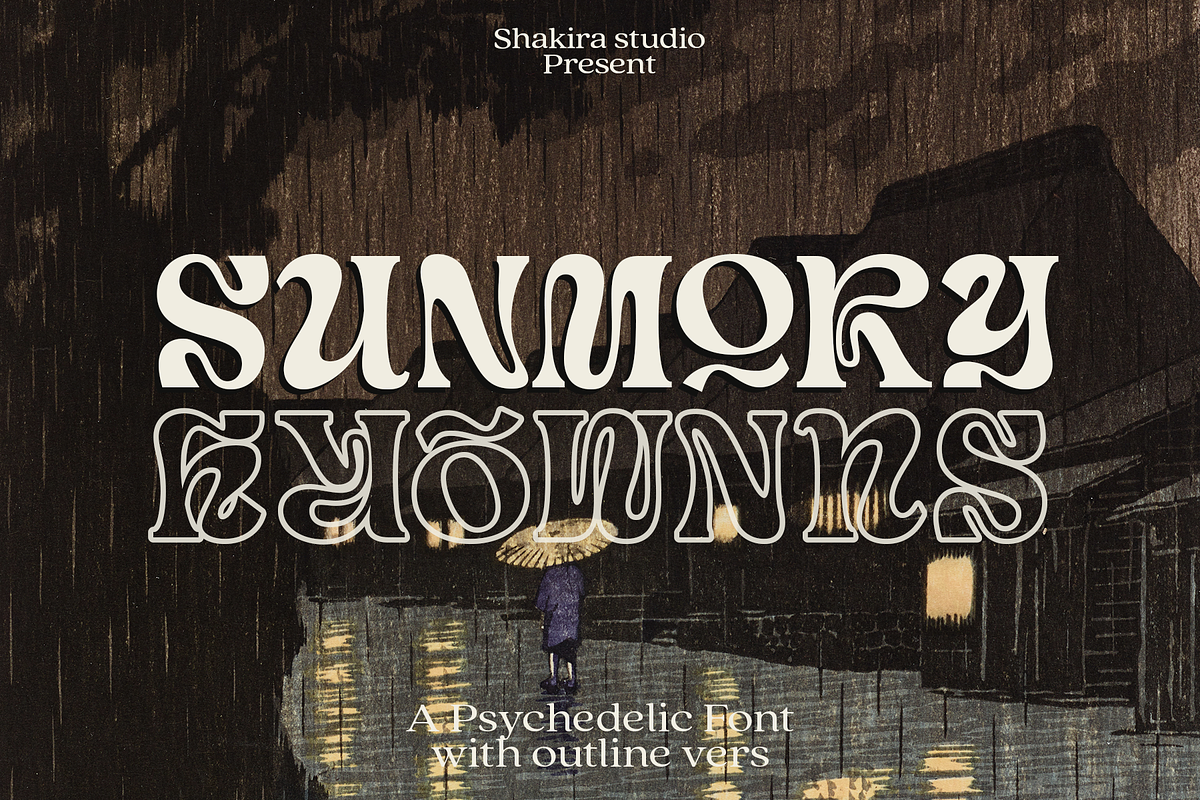
Sunmory is a versatile serif font that has been described in two distinct styles:
1. Contemporary Psychedelic Design: According to a description on Befonts, Sunmory is a contemporary typeface with a psychedelic twist, featuring curved and sinuous designs that make it suitable for making statements in modern design projects.
2. Festive Holiday Theme: In contrast, a listing on Font Bundles portrays Sunmory as a festive and merry typeface capturing the spirit of the holiday season, with decorative elements and whimsical flair ideal for greeting cards, gift tags, and holiday-themed projects.
Given these differing descriptions, it's possible that "Sunmory" refers to two separate fonts sharing the same name but designed for different purposes.
Incorporating Sunmory into your design projects can add either a contemporary psychedelic flair or a festive holiday charm, depending on the version you choose.